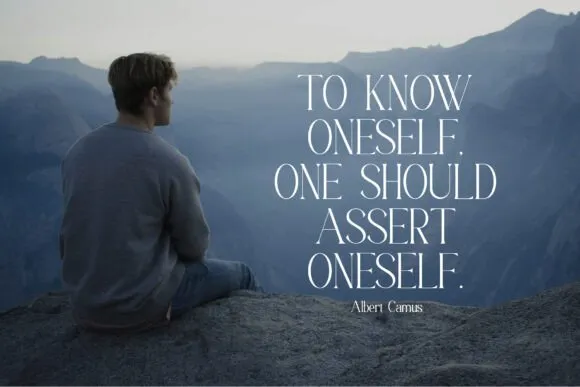
Aligin Font
Aligin Font is a fair, smooth, rich and beautiful serif text style. He has a lovely person. It fits impeccably with greeting card plans, organization logos, film titles, film names, business cards, book titles, brand names and different plans.
Aligin Font is an unpretentious serif text style that radiates refinement and class. Its upscale shifts and ligatures make this text style the ideal accomplice for any venture.